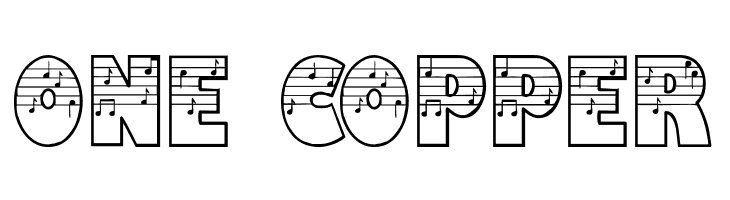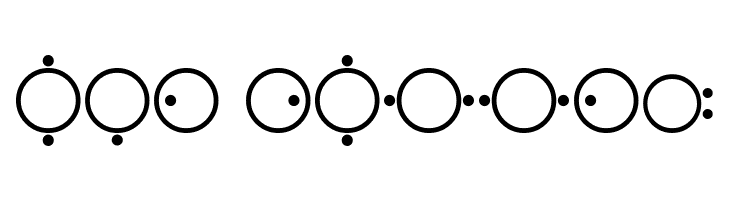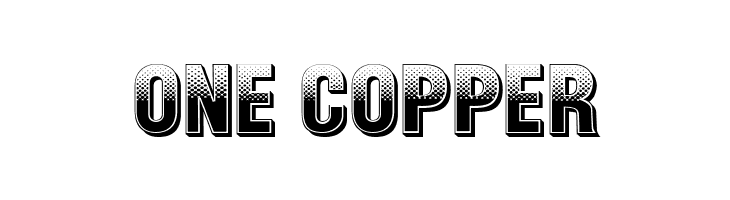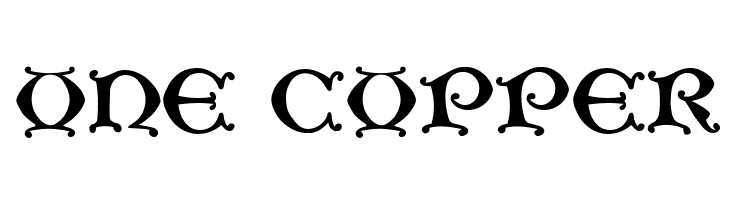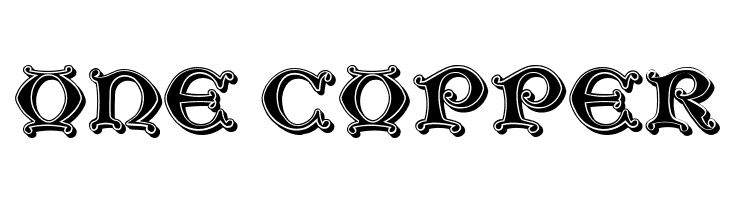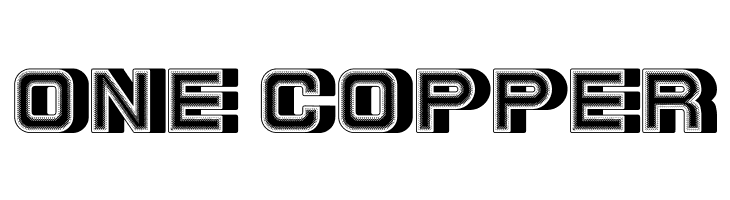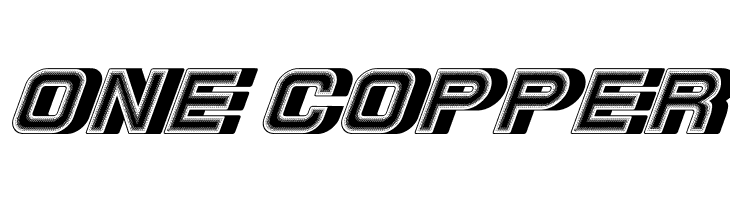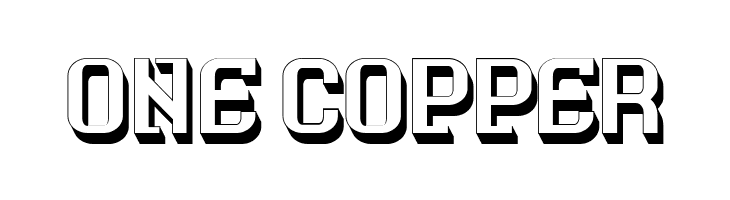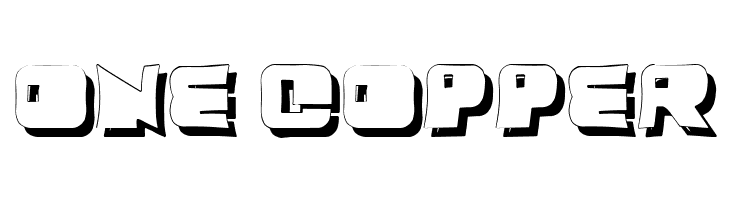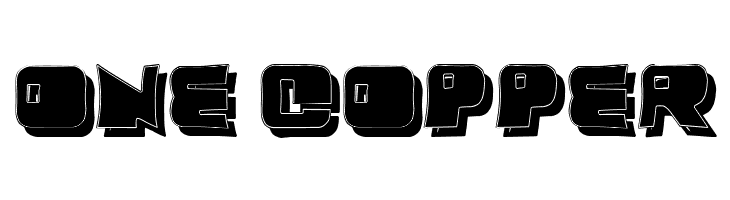
A bold, gothic-inspired font with sharp, angular edges and intricate details.
A modern, geometric font with bold lines and intricate patterns.
A bold, decorative font with musical notes integrated into each letter.
A bold, geometric font with a modern and minimalist aesthetic.
An ornate and decorative font with intricate details and a historical flair.
An ornate, decorative font with intricate detailing and a blackletter-inspired style.
A bold, playful slab serif font with rounded characters.
A bold, flowing script font with elegant curves and dynamic strokes.
A bold, dynamic script font with interconnected characters and a fluid style.
A decorative, abstract font using circles and dots to create unique characters.
A bold, geometric font with strong, angular lines and a modern style.
A bold, geometric font with strong lines and a modern aesthetic.
A bold, playful font with exaggerated strokes and a cartoonish style.
A bold, industrial-style font with a blocky, three-dimensional appearance.
A bold, three-dimensional font with a strong, impactful presence and shadow effect.
Bold, italicized font with a three-dimensional, geometric style.
A bold, industrial font with a textured, three-dimensional appearance.
A dynamic and elegant script font with flowing, cursive letterforms.
A bold, distressed font with a grunge aesthetic and vintage appeal.
A bold, decorative font with a halftone pattern and strong outlines.
A dynamic and elegant script font with high contrast and flowing letterforms.
A bold, expressive script font with high contrast and decorative flourishes.
A distressed, grungy font with jagged edges and uneven strokes, perfect for bold, alternative designs.
A bold, hand-drawn font with a playful and textured outline.
A bold, geometric font with intricate patterns and high contrast.
A playful, bold font with rounded strokes and a friendly appearance.
A bold, playful font with rounded edges and a slightly condensed form.
A bold, 3D geometric font with a modern, impactful style.
A playful, bold font with rounded, bubble-like characters.
A playful, bold font with rounded, bubbly characters and a whimsical touch.